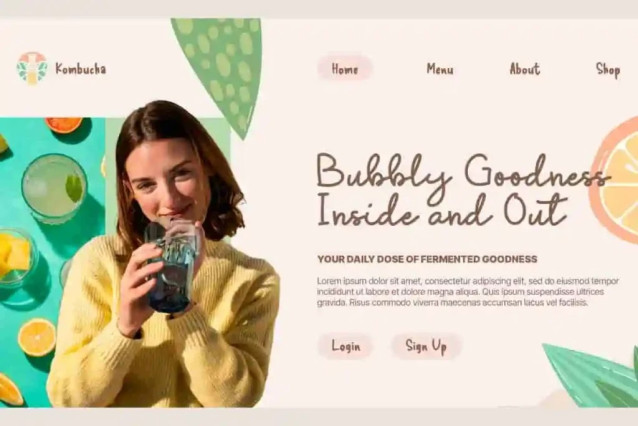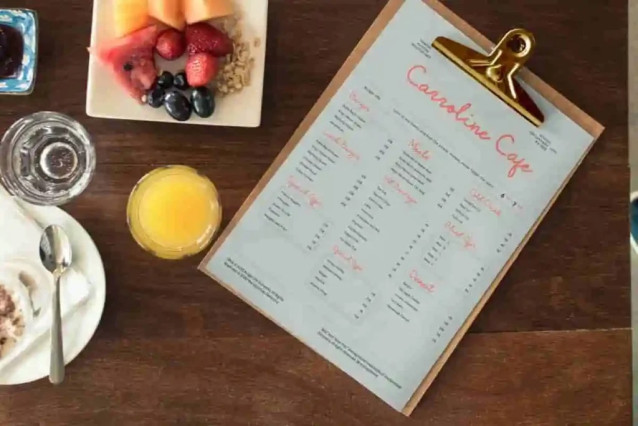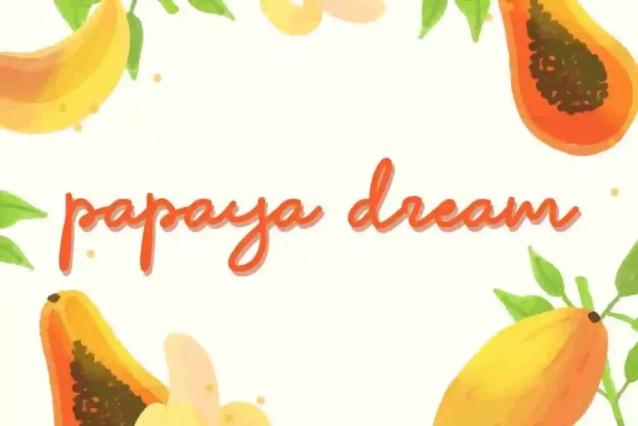
Papaya Dream Font
Papaya Dream Font is a chic and casual handwritten font based on a contemporary writing style like using a marker. It is perfect to combine with regular fonts to add emphasis to words, or even as a standalone font. Perfect for bakeries, cafe, graphic design, home furniture, juice shop, photography, restaurant, spa beauty, and much more.
Papaya Dream Font includes a complete set of Basic Uppercase and Lowercase Characters, Numbers, Punctuation, and Symbols. This is here to add a natural flowing handwriting style. Perfect for banners, blogs, brochure, business card, flyer, greeting cards, headers, label, logos, menu, stationery, sticker, titles, website, etc.